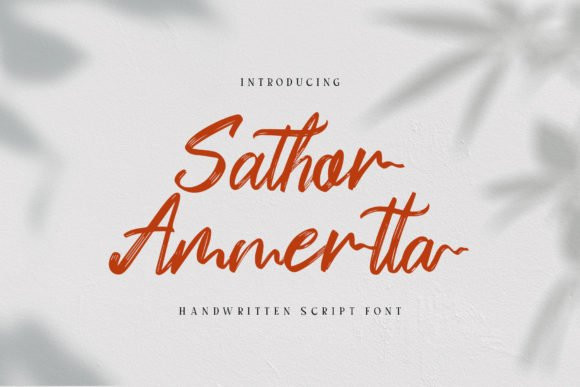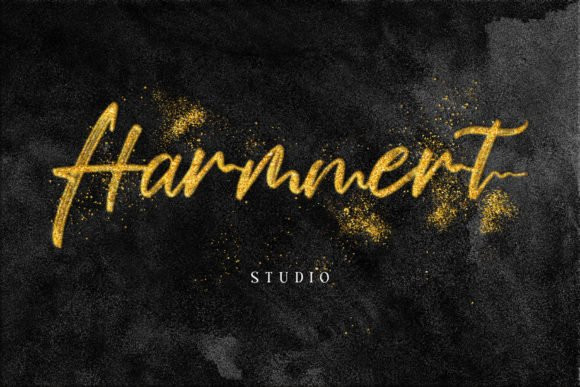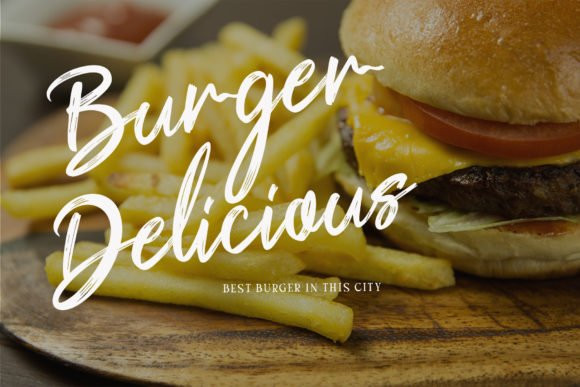
Sathor Ammertta Font
Sathor Ammertta FontSathor Ammertta is a modern script font made in a brush style. Fall in love with its completely different and timeless style and use it to bring your projects to the highest level!